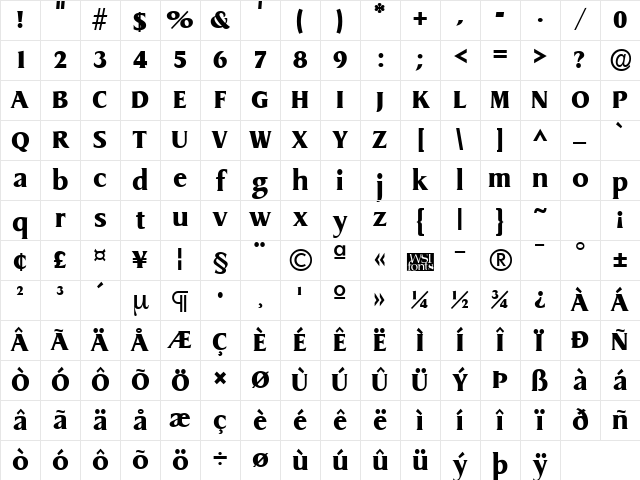
GriffonExtrabold Regular
GriffonExtrabold Family
Complete GriffonExtrabold Regular glyph index. Displaying only characters natively supported by GriffonExtrabold Regular font.
Design Context for GriffonExtrabold
GriffonExtrabold is a composed and adaptable typeface that performs quietly and consistently across a wide range of design contexts. Its bold stroke weight gives it real presence on the page.